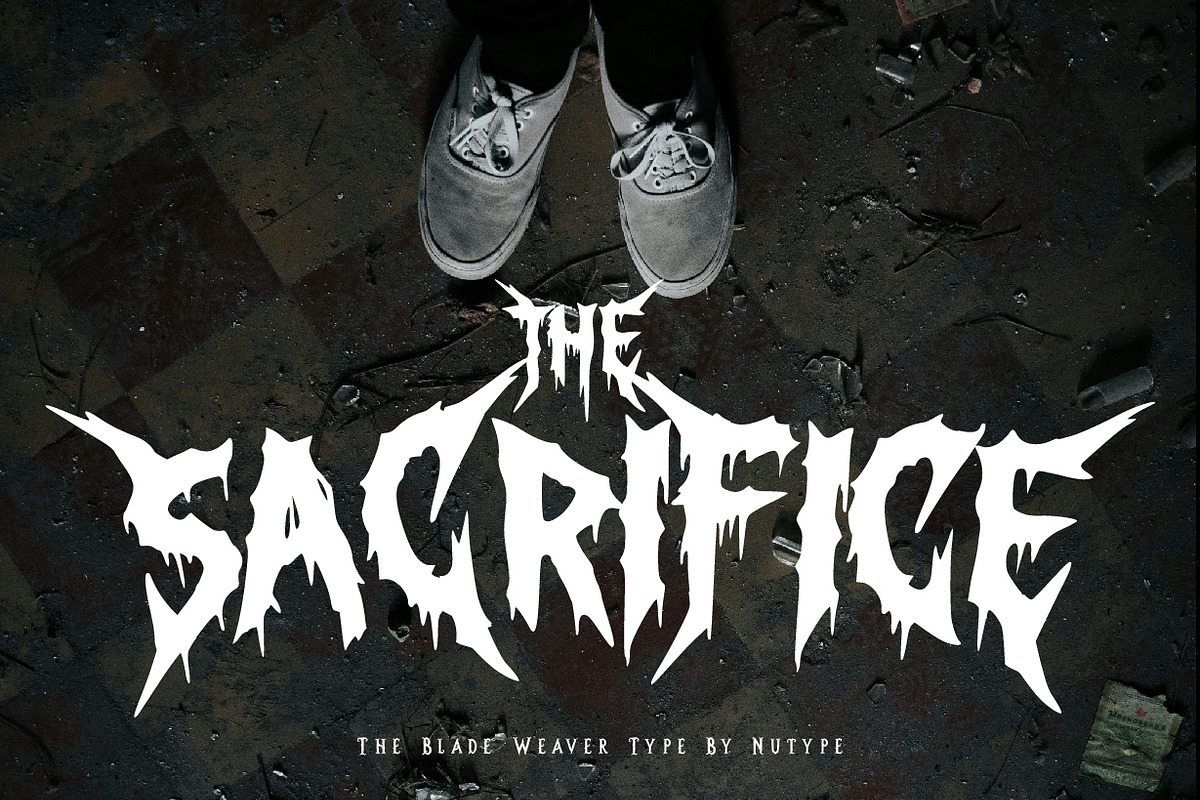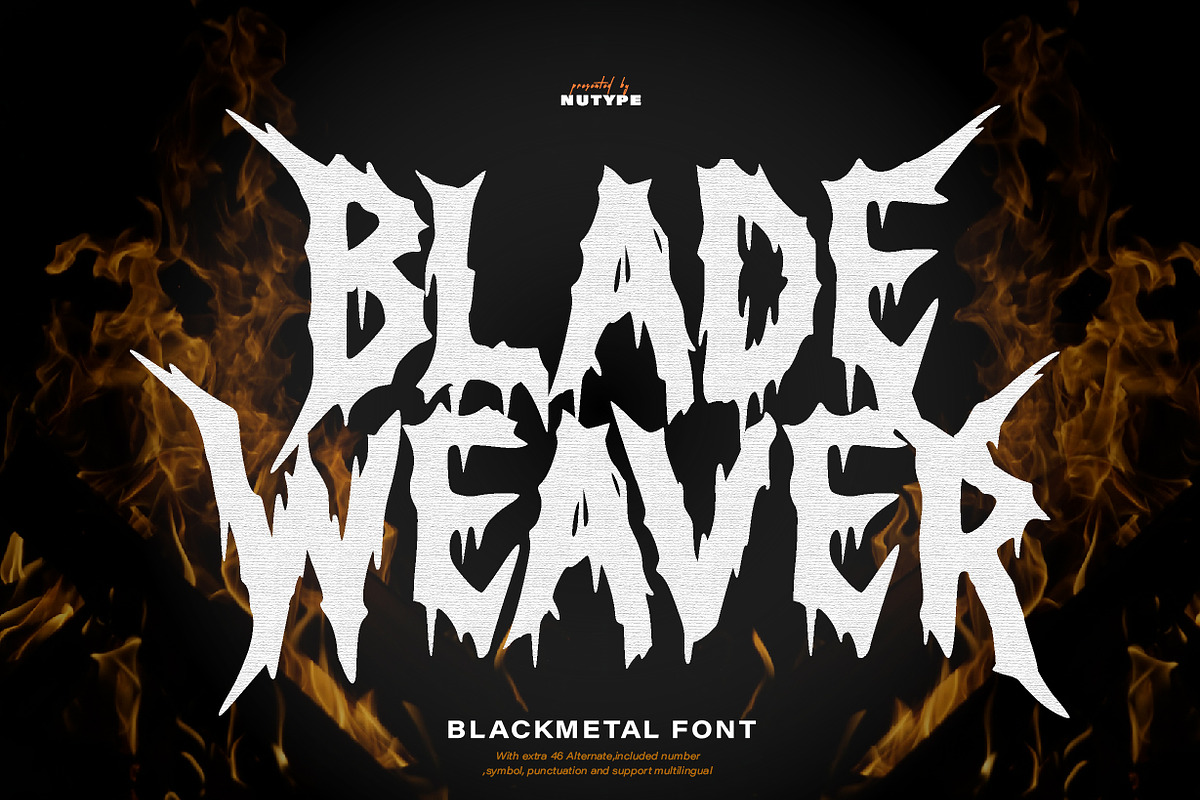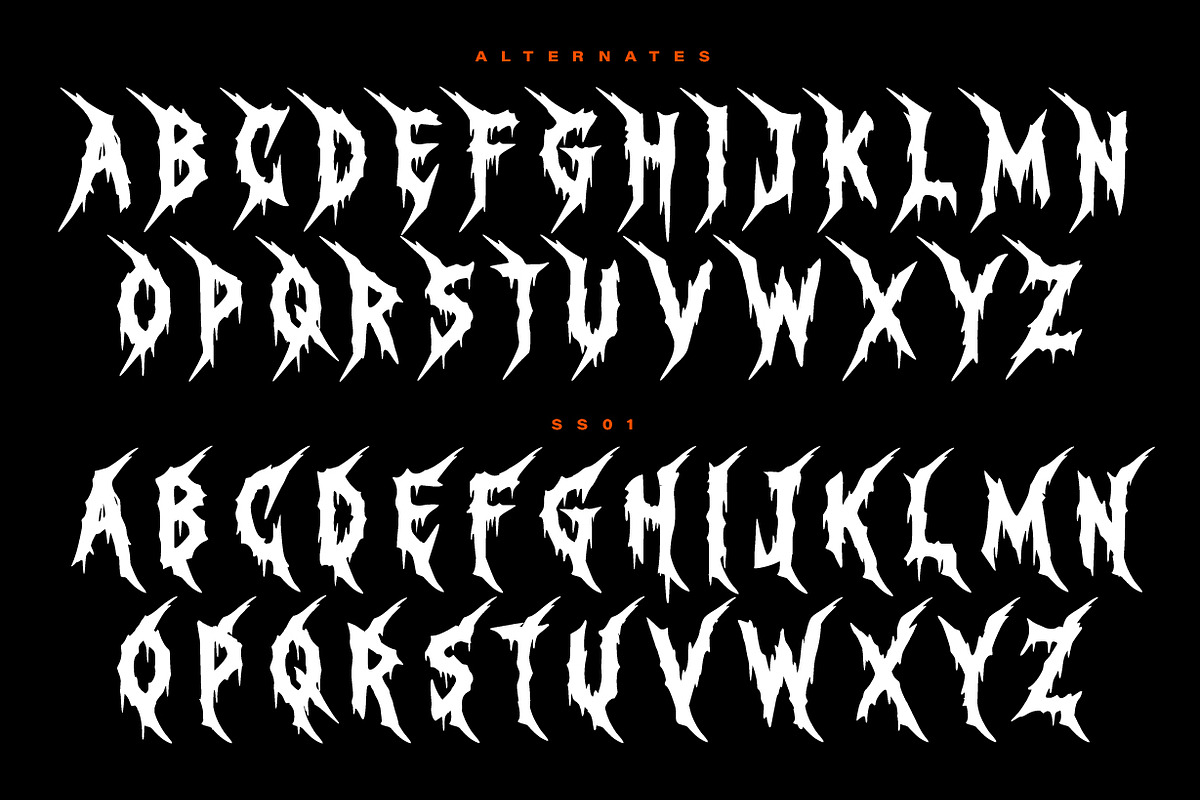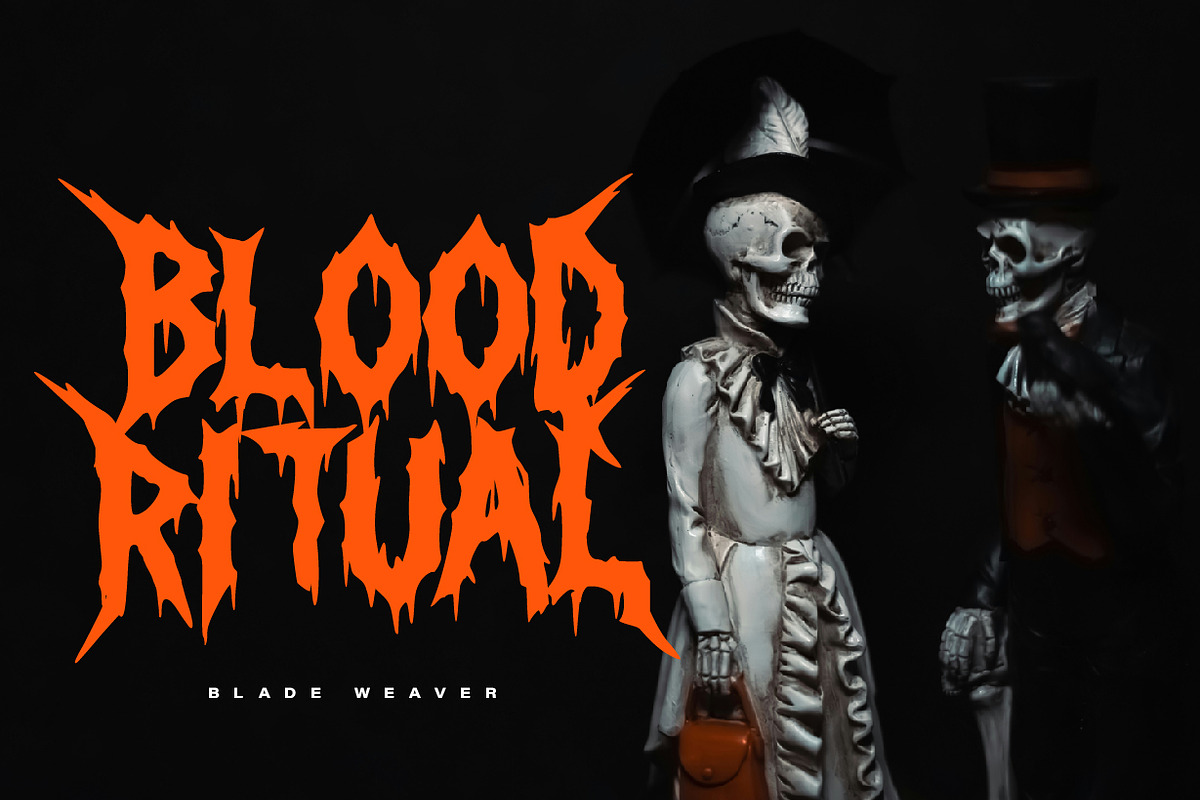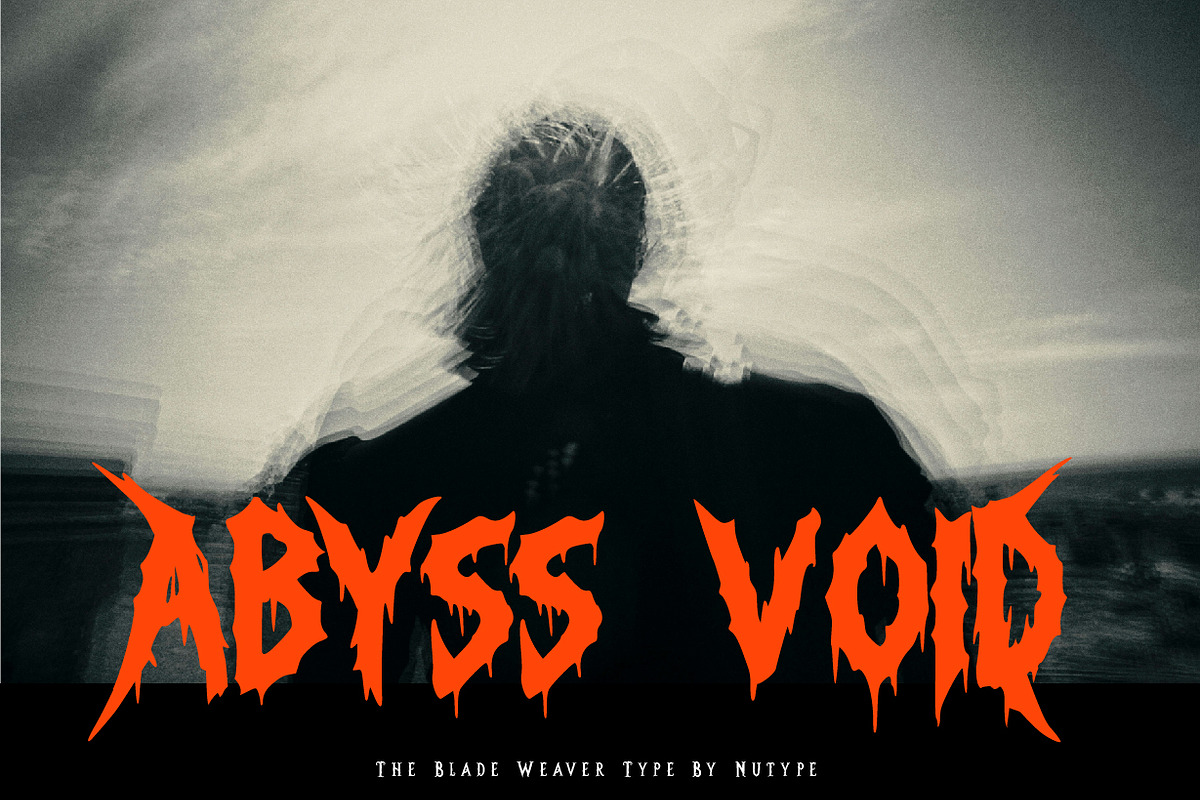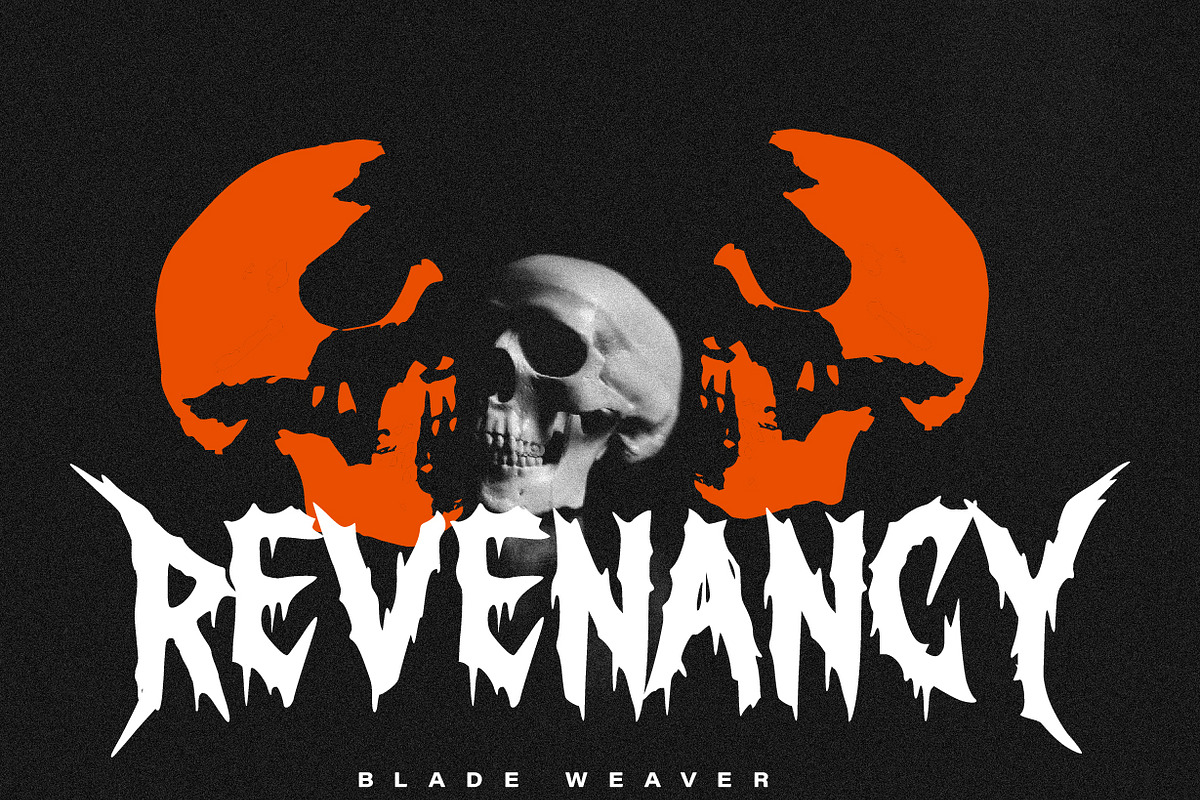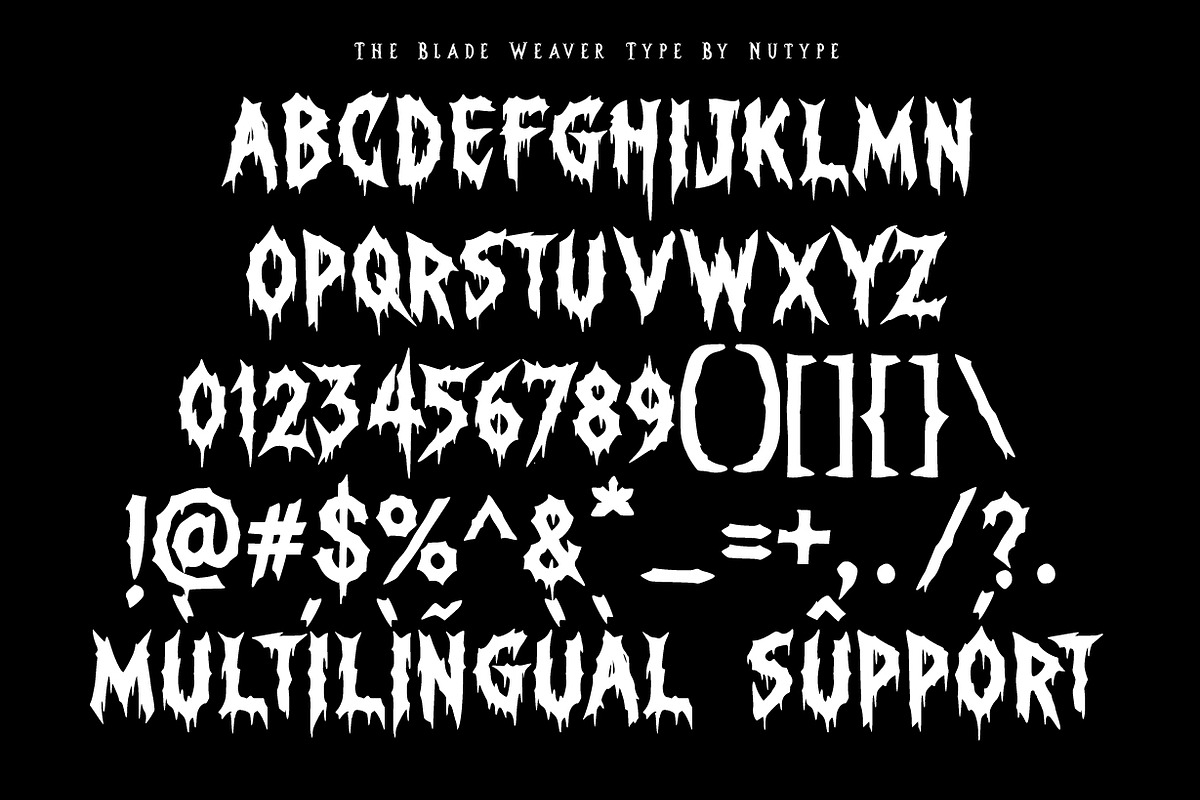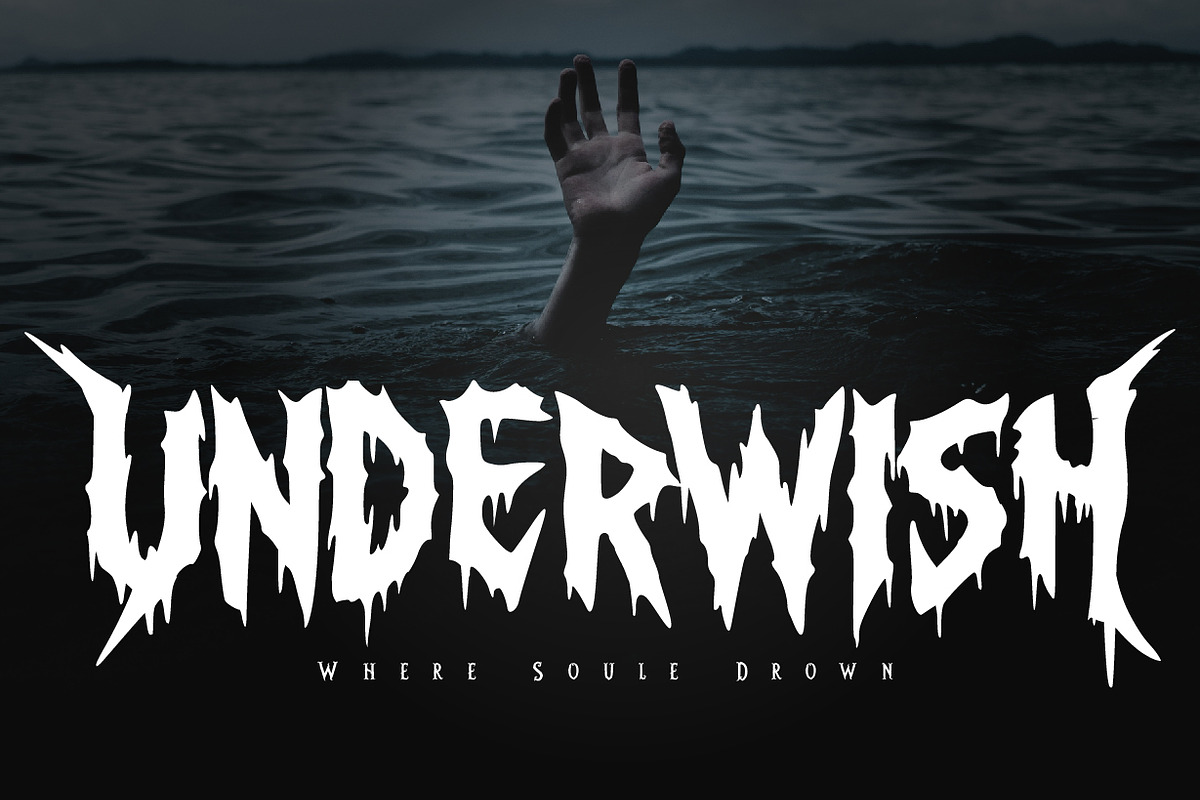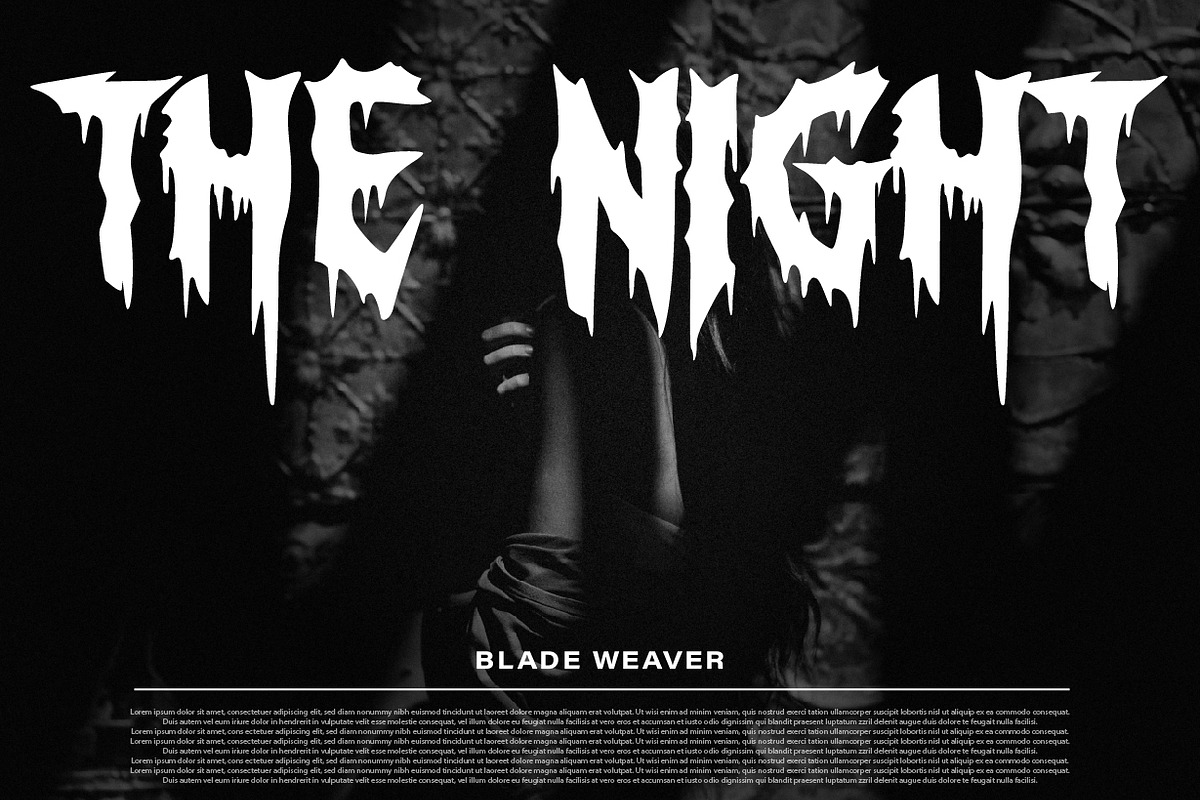
Blade Weaver - Blackletter Font
Blade Weaver is a horror display typeface with sharp, distorted strokes, a dark fantasy, and an underground aesthetic. This font features over 40 alternates that will bring your designs to life, giving them a spooky, chaotic, and energetic look perfect for horror posters, movie titles, game logos, metal band artwork, Halloween designs, YouTube thumbnails, album covers, and branding projects requiring a strong sense of dread.
- Full Uppercase & Lowercase Letter Set
- Numbers, Symbols & Punctuation
- 40+ Alterntes
- Multilingual Language Support
- Perfect for Horror Posters, Logos, Games, Movies, and Branding